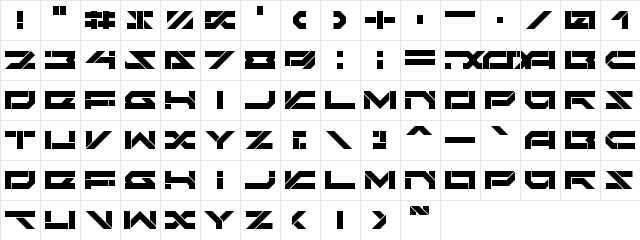
Darktech LDR Regular
| Designer | MichaB Neoqueto Nowak |
Design Context for Darktech LDR Typeface
Darktech LDR has a distinctly futuristic character, with geometric precision and clean angles that feel at home in technology, gaming, and sci-fi contexts.